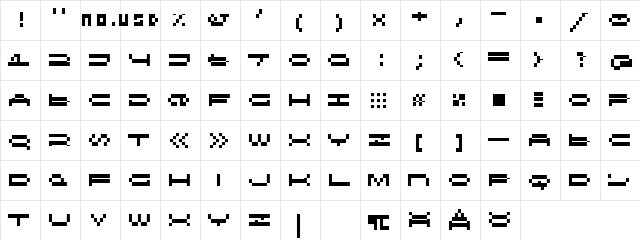
Il Tempo Gigante Regular
Design Context for Il Tempo Gigante Typeface
Il Tempo Gigante is a composed and adaptable typeface that performs quietly and consistently across a wide range of design contexts.